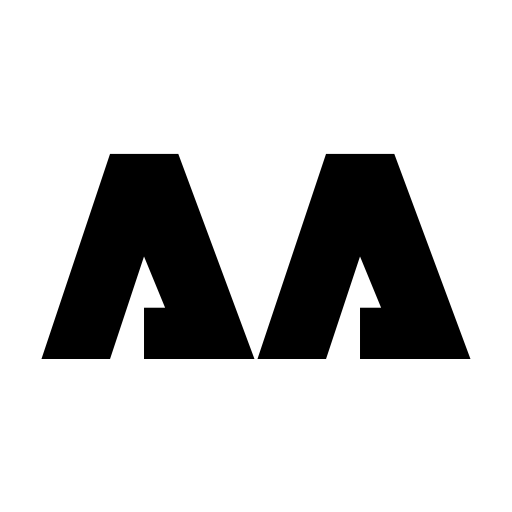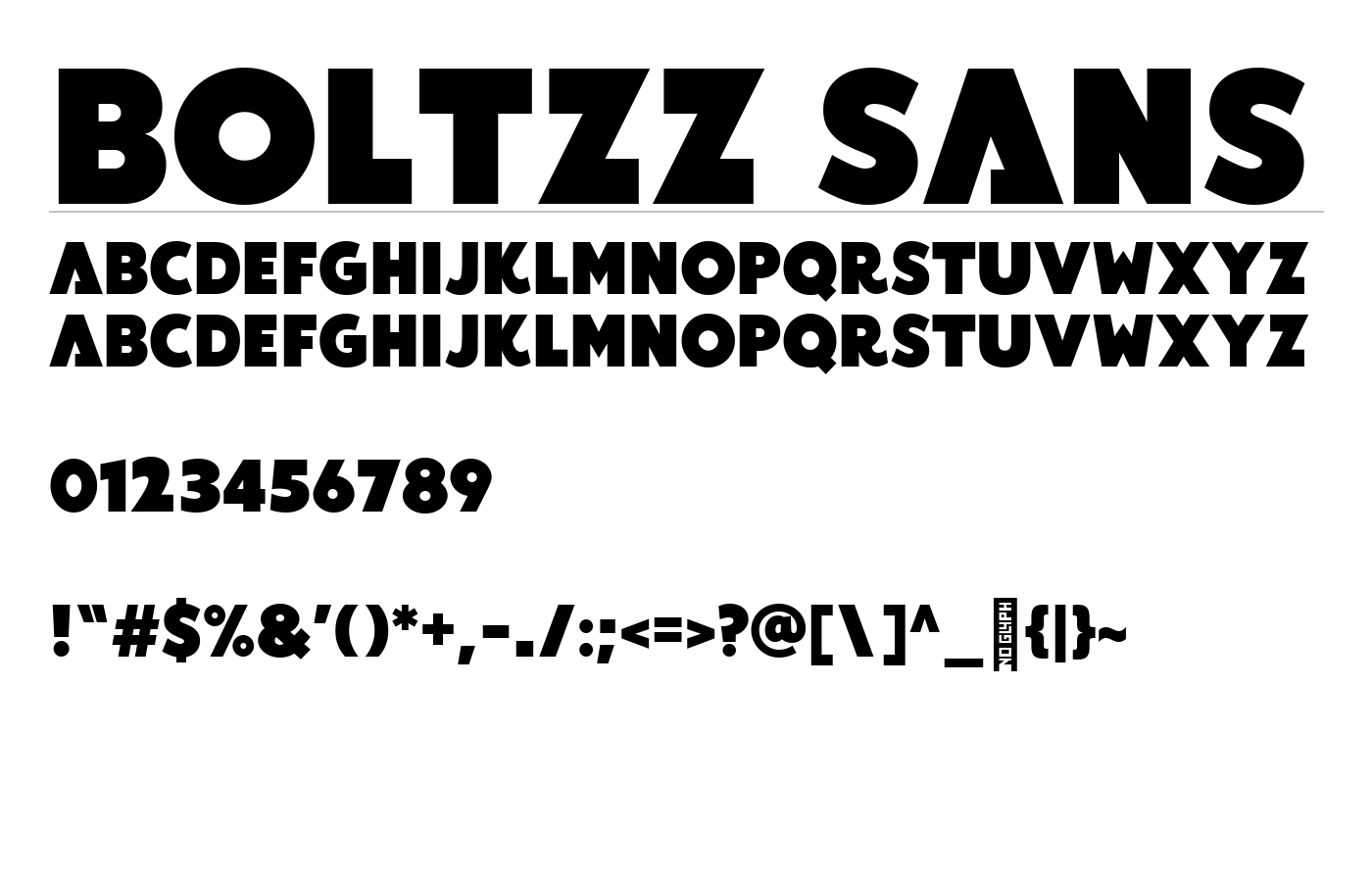
BOLTZZ Sans is a bold, geometric sans serif font with a strong, modern presence. Its thick strokes and high contrast create a striking, impactful look, while the sharp angles and unique letter shapes add a contemporary, playful edge. Ideal for headlines, logos, and branding, this font is perfect for designs that need to convey confidence and boldness.
BOLTZZ Sans Font